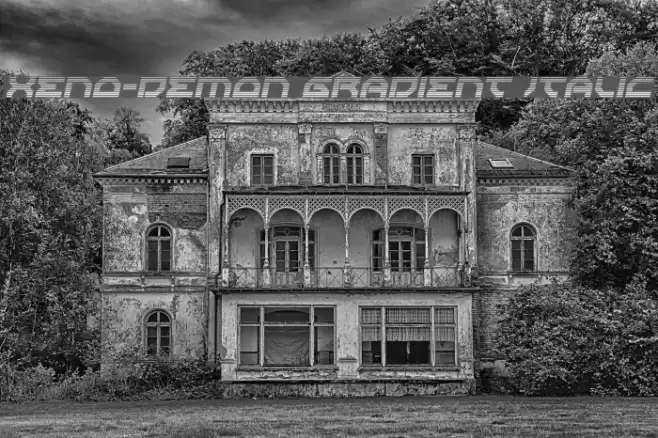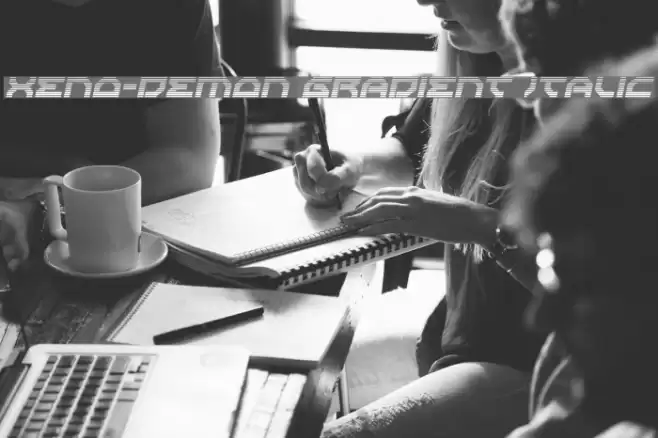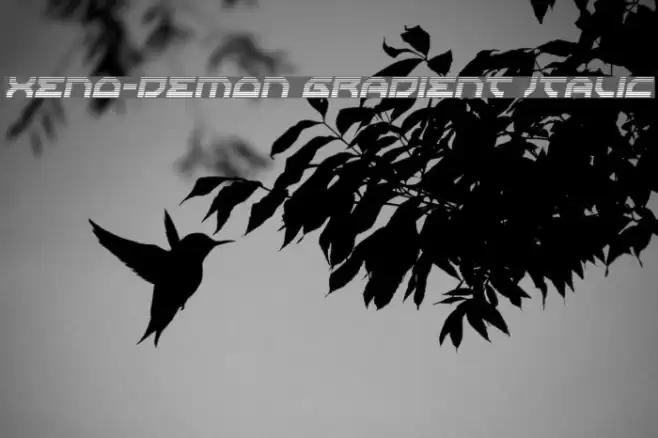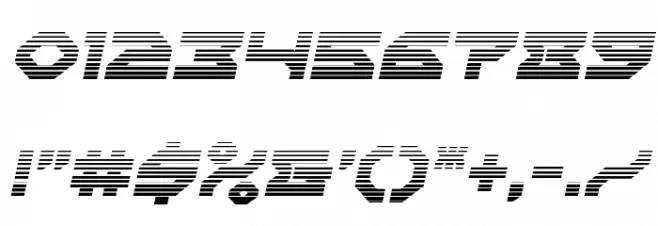
Xeno-Demon Gradient Italic Font
Xeno-Demon Gradient Italic Description
This font features a futuristic and dynamic design, characterized by its gradient-like horizontal lines that create a sense of movement and depth. The italicized style adds a forward-leaning energy, enhancing its modern and edgy appearance. Each character is composed of segmented lines, giving it a digital and high-tech feel. The uppercase and lowercase letters maintain a consistent style, while the numbers and special characters integrate seamlessly with the overall aesthetic. The font's unique structure makes it stand out, ideal for projects that require a bold and innovative look.
A futuristic, gradient-lined italic font with a dynamic and high-tech appearance from Sci-fi fonts.
- Proposed Projects: Ideal for sci-fi themed designs, tech company logos, video game titles, and futuristic posters.